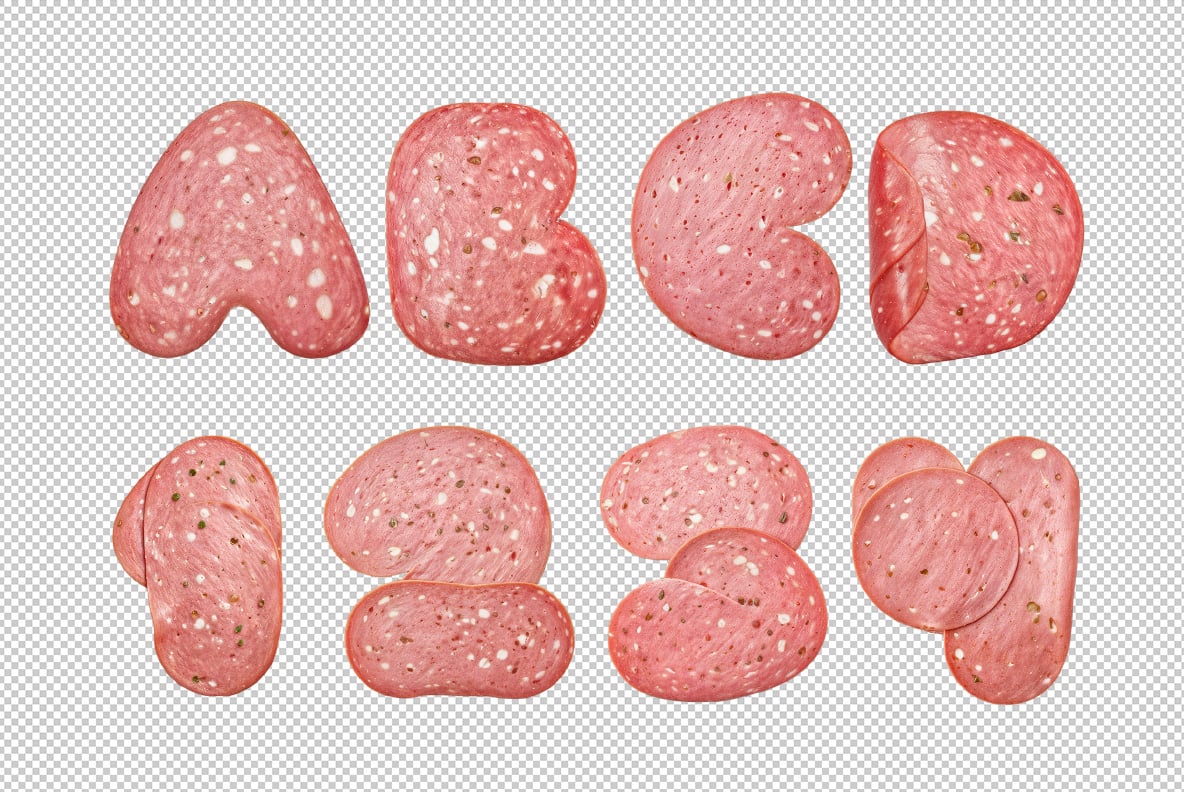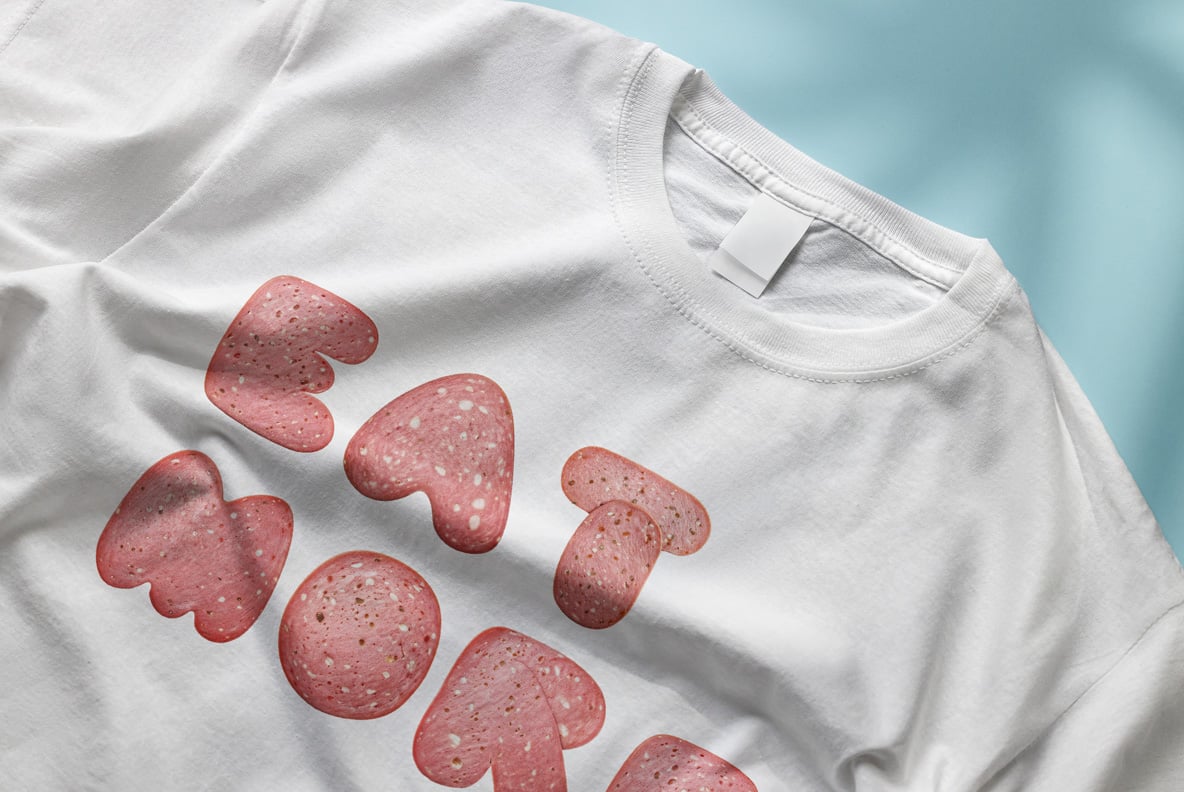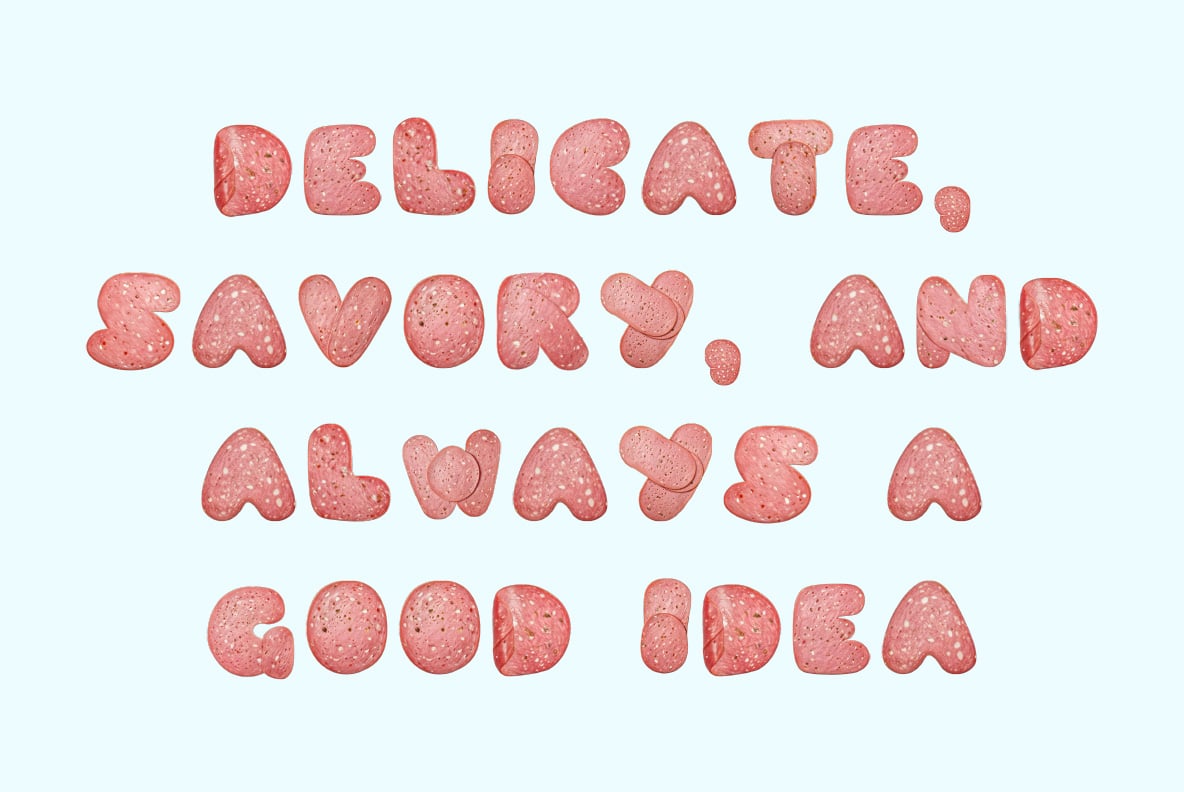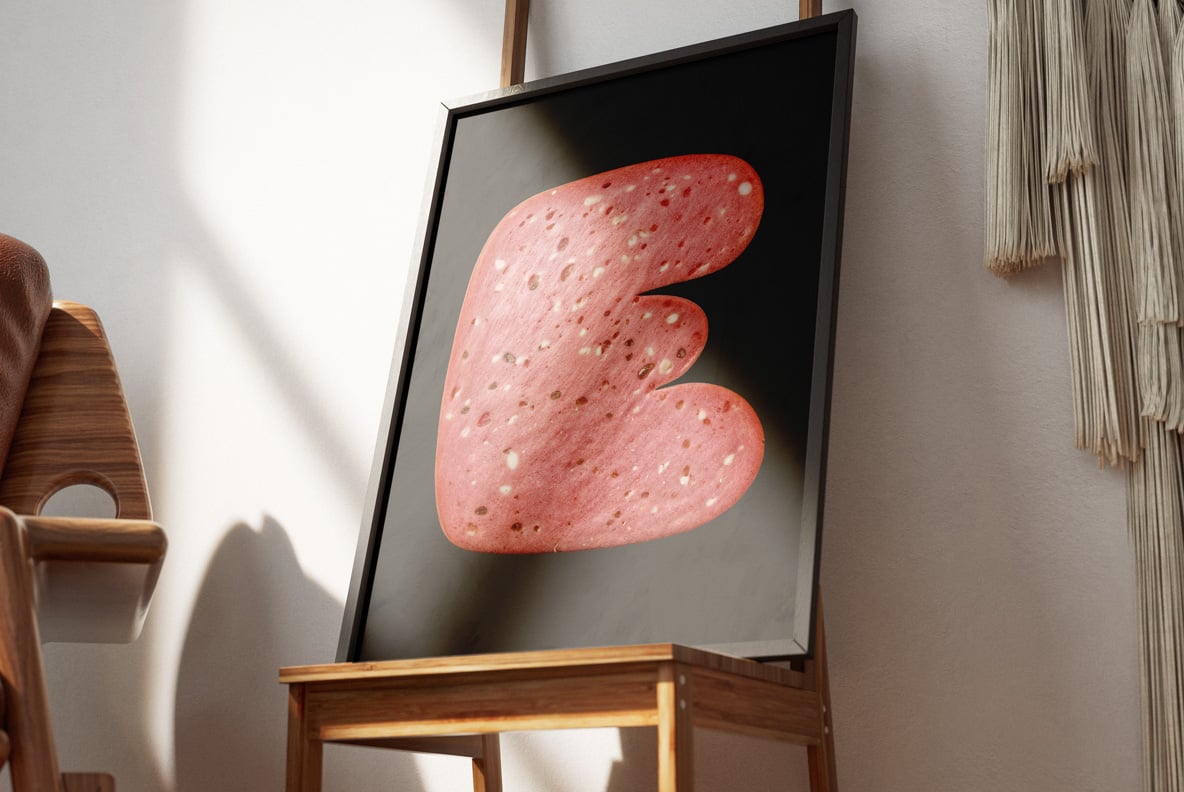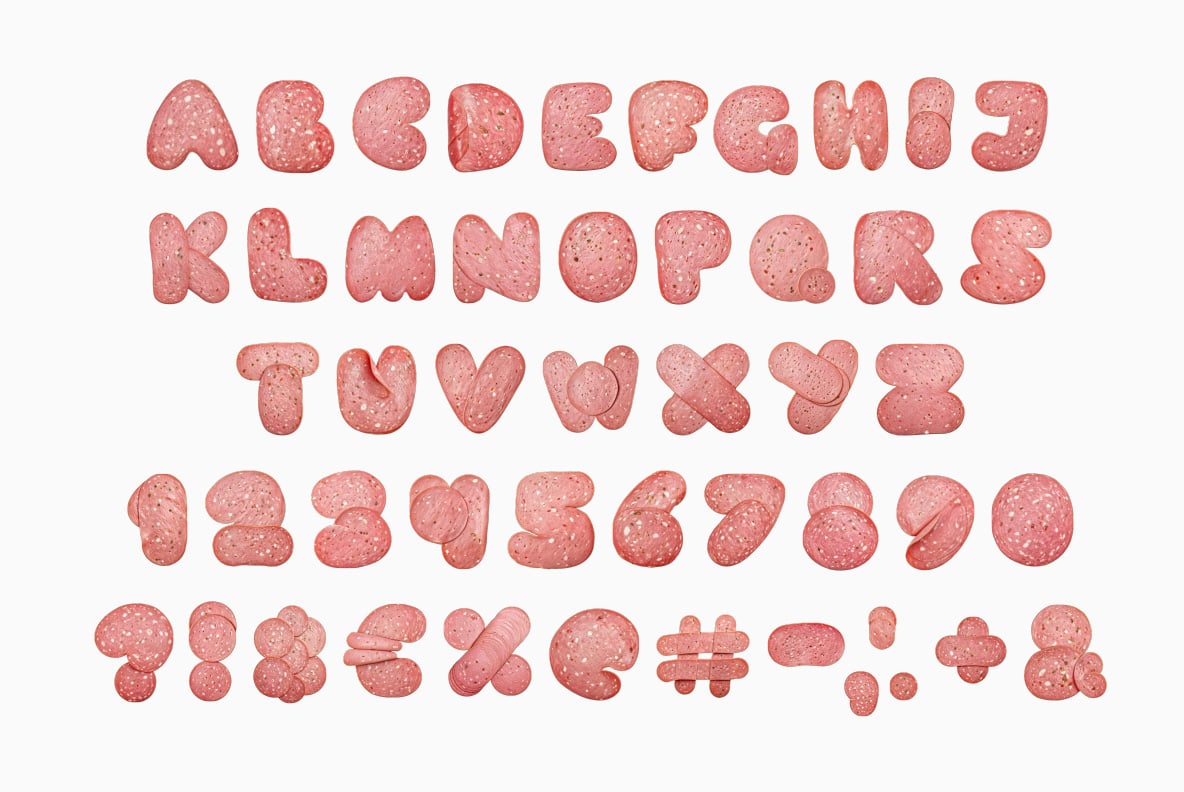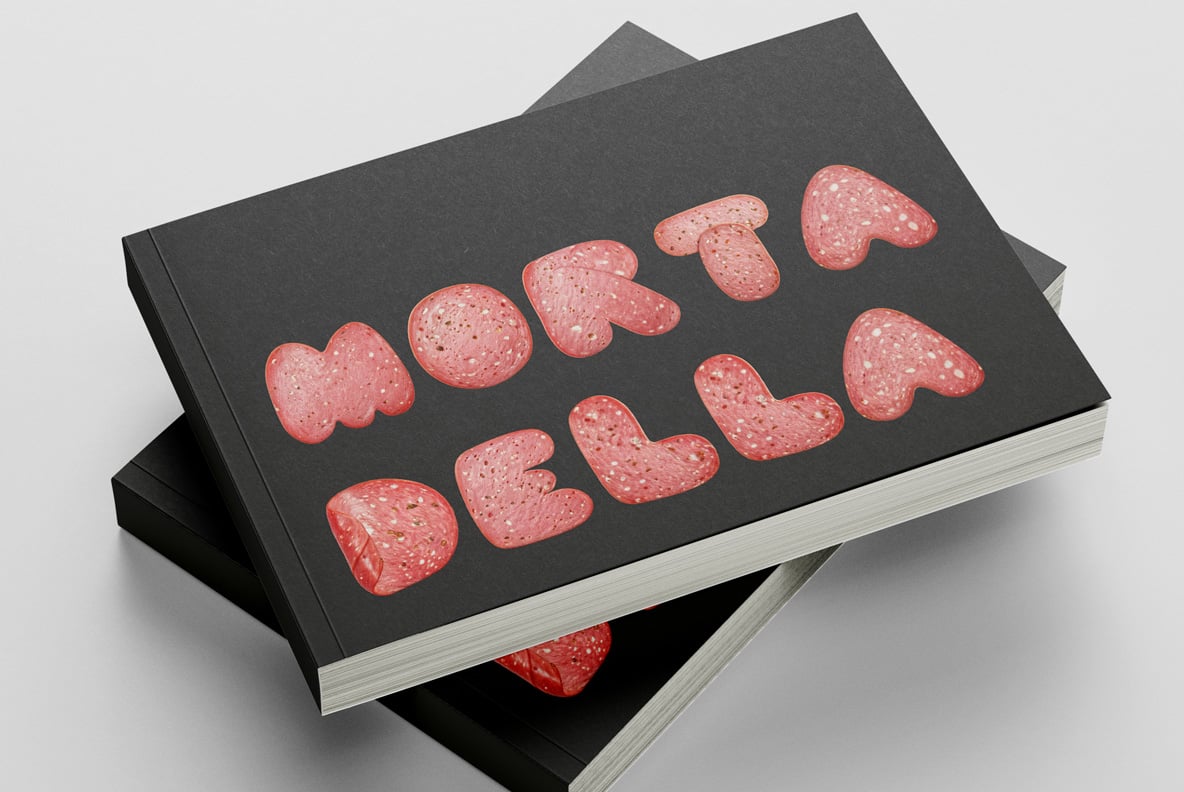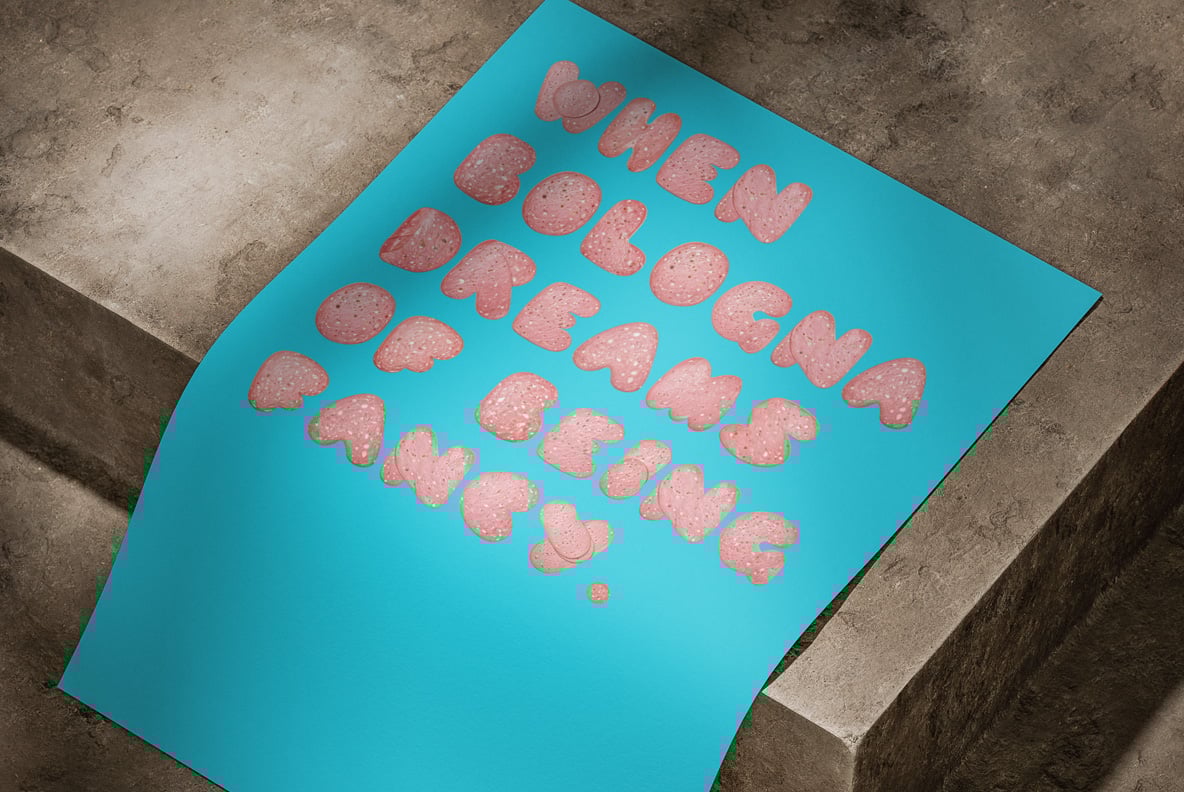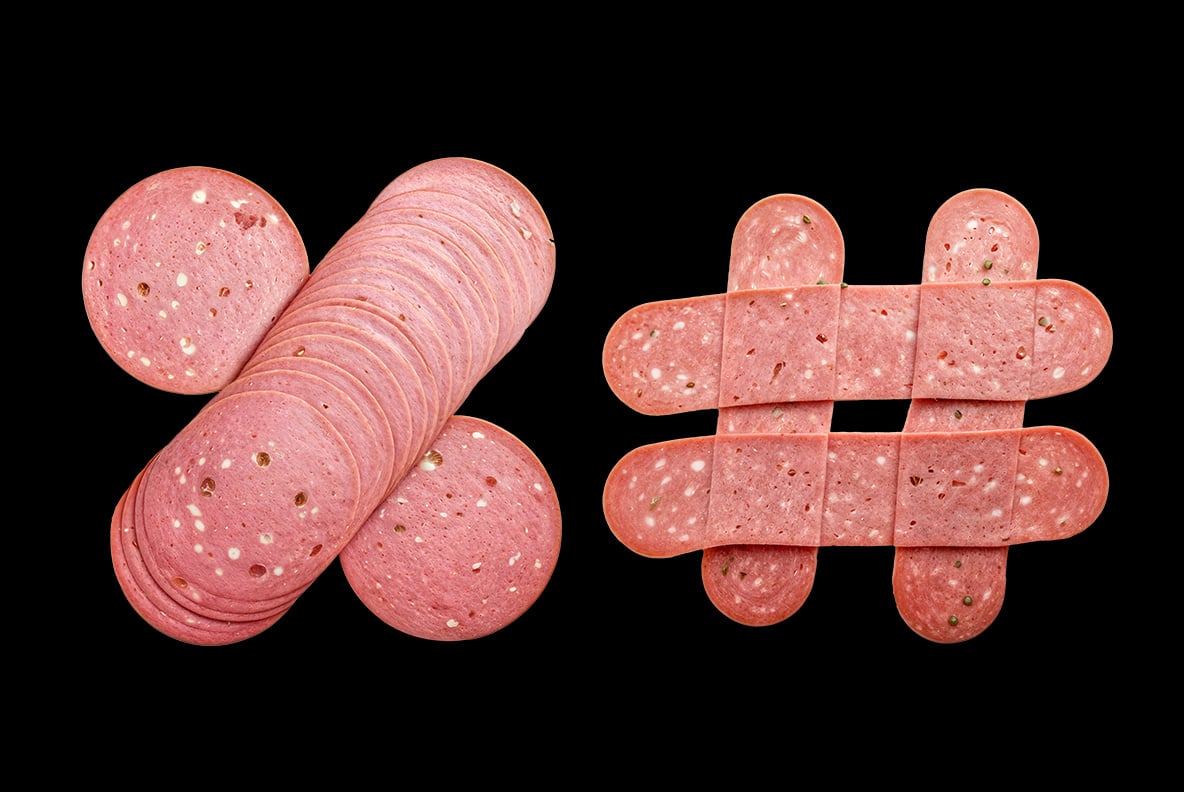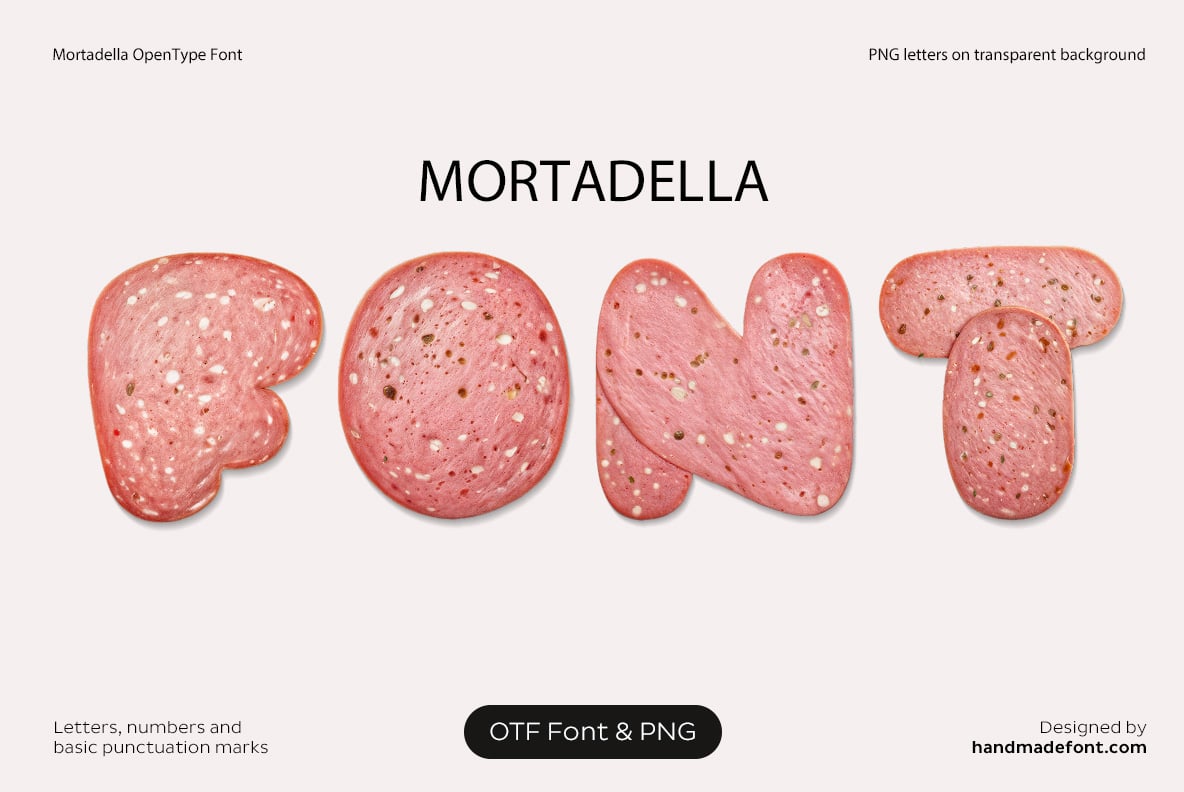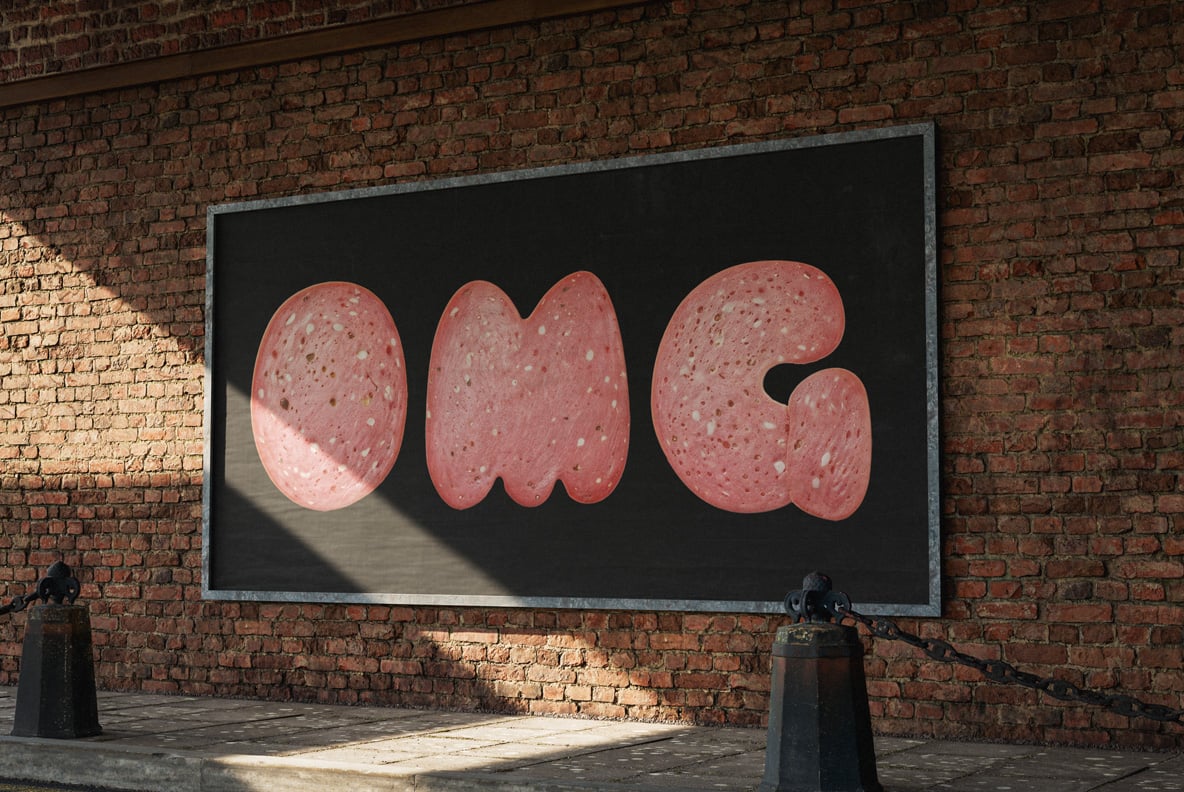
Mortadella Font
Sausage lovers and typography enthusiasts, rejoice! Mortadella Font is here to bring a slice of delicious creativity to your designs. This Mortadella-inspired font is crafted entirely from juicy, oval slices of traditional Italian mortadella, complete with its signature pink hue, creamy white fat cubes, and surprise pops of green pistachios. A true gourmet typographic feast, Mortadella Typography adds a delectable touch of deli-style charm to any project. Whether you're designing a charcuterie menu, a food blog, or just want your words to look as mouthwatering as a fresh cut of cured meat, Mortadella Lettering serves up a perfect blend of flavor and flair. So go ahead—take a bite out of Mortadella Alphabet and spell out something delicious!
A high definition OpenType Font. Contains uppercase characters, numerals and basic punctuation. (Draw height roughly 800 pixels). All letters and glyphs that comprises this font you can see on the preview.